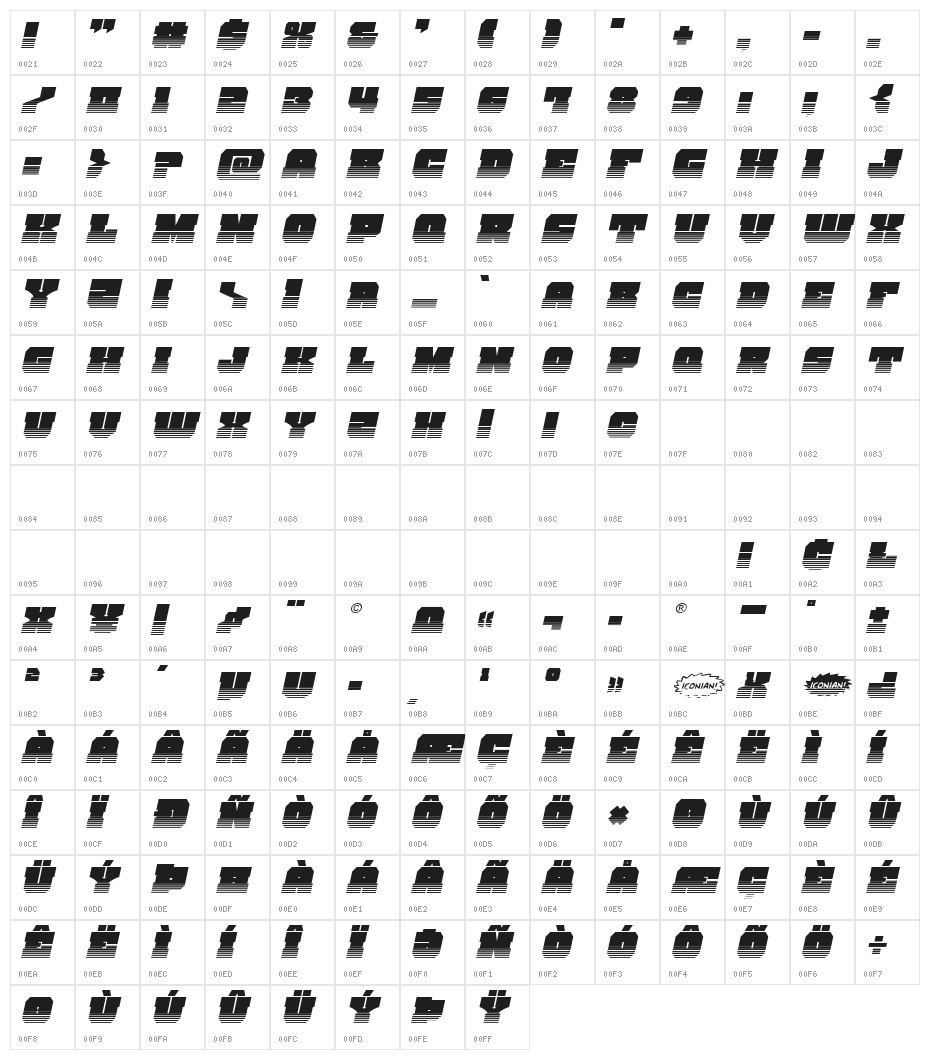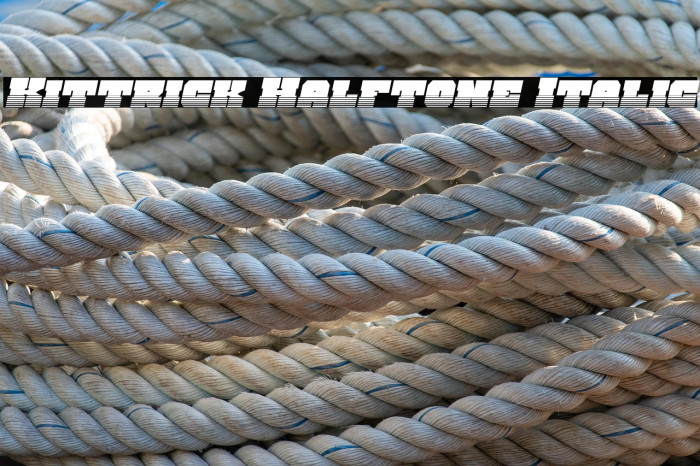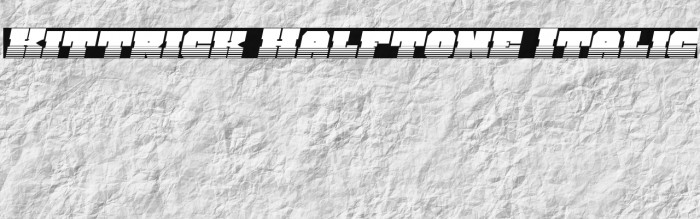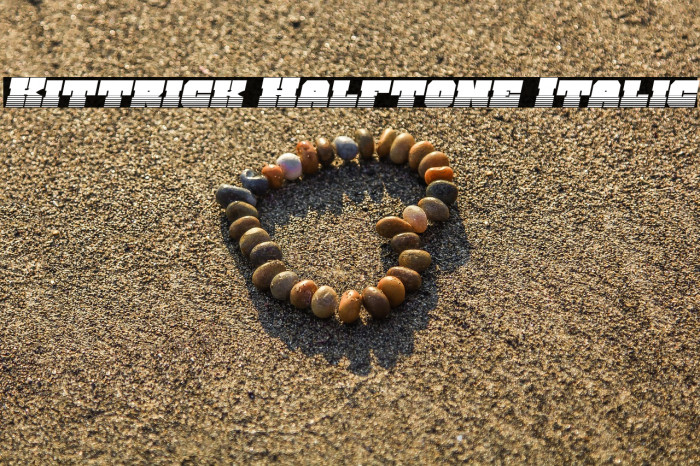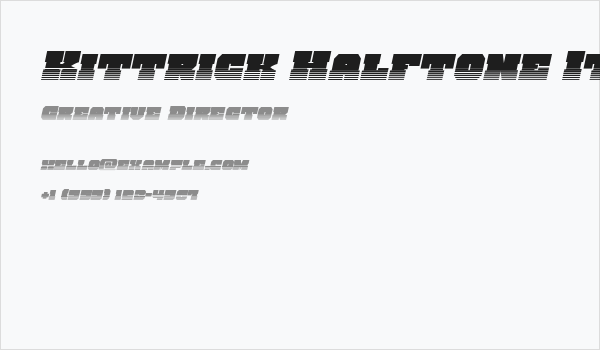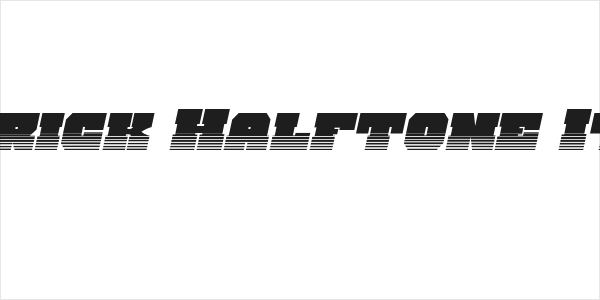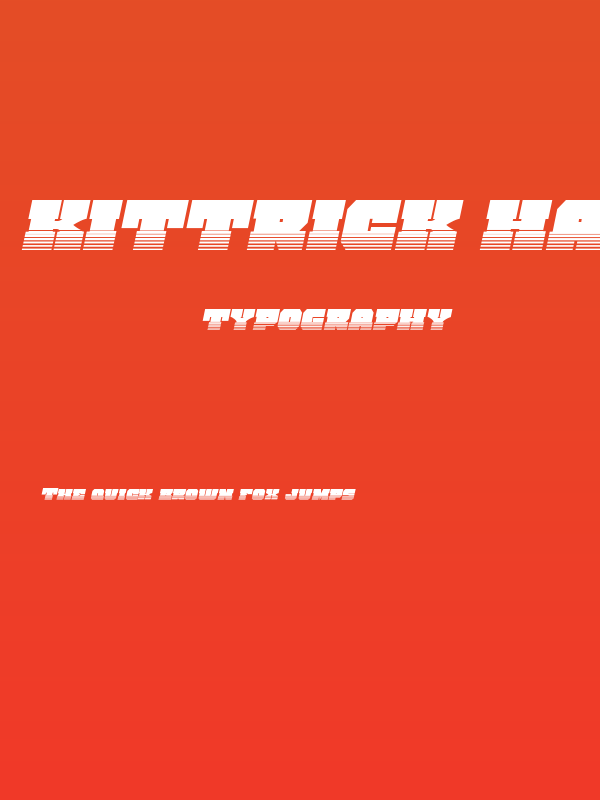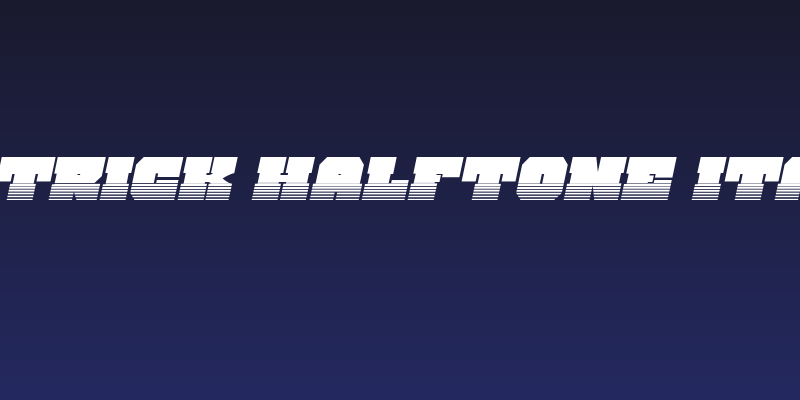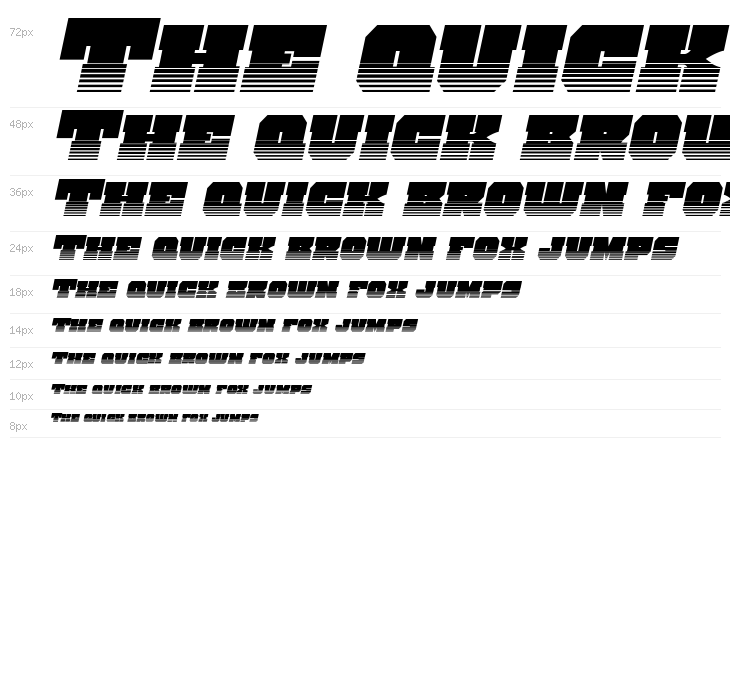
Kittrick Halftone Italic Font
Kittrick Halftone Italic Description
This font features a bold, italicized style with a distinctive halftone effect. The characters are constructed with horizontal lines that create a gradient-like appearance, giving the font a dynamic and modern look. The uppercase and lowercase letters maintain a consistent width, contributing to a cohesive visual impact. The numbers and special characters follow the same design principles, ensuring uniformity across all glyphs. This font's unique style makes it suitable for eye-catching designs where a strong visual presence is desired.
| Proposed Projects | Ideal for posters, album covers, branding materials, and any project requiring a striking visual element. |